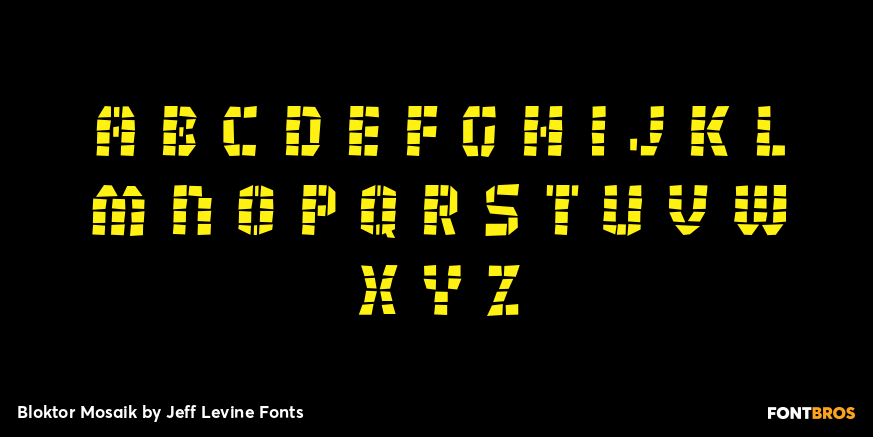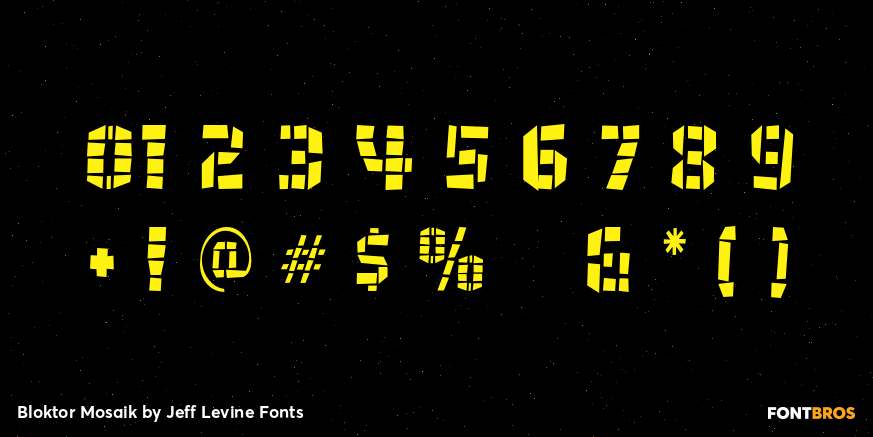
Bloktor Mosaik
Bloktor Mosaik JNL from Jeff Levine was at first a straightforward brick design sent to Typodermic's Ray Larabie for preview. Ray decided to run it through a filter to see what would happen, resulting in a font that emulates the look of cut stone or tile.